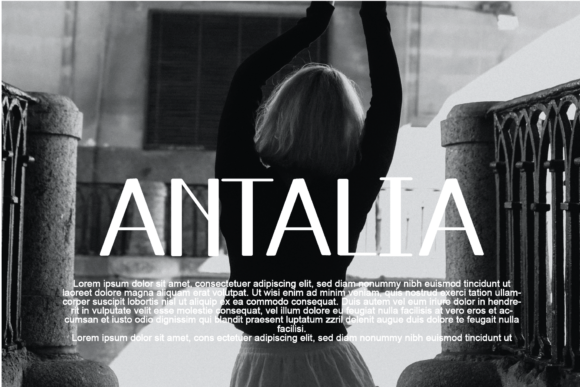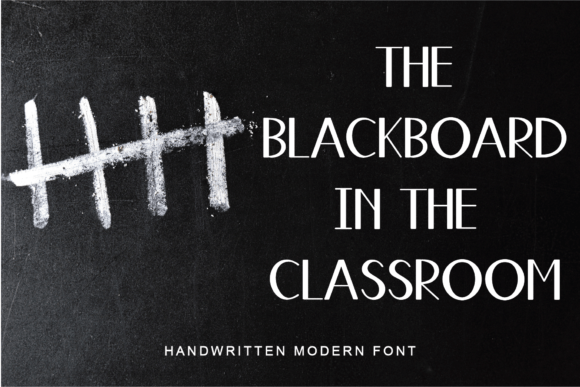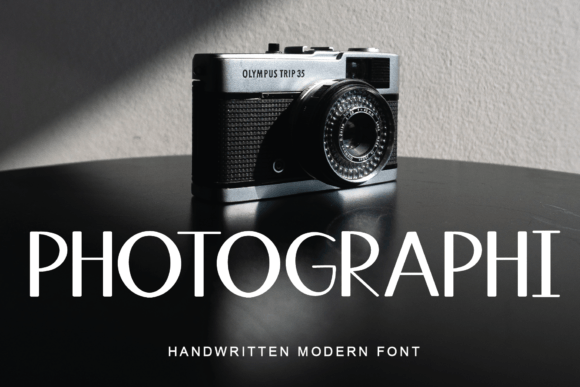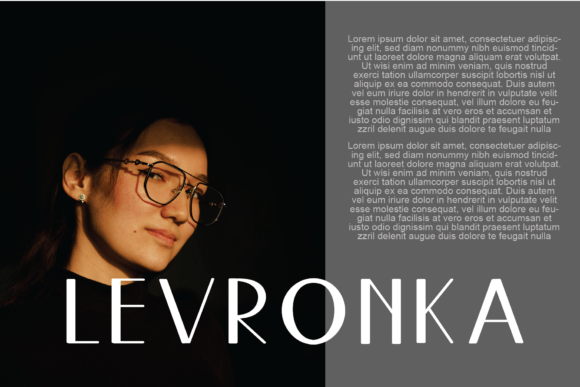
Introduction to Monokrom Font
You’re browsing through design inspiration boards, and suddenly, you stumble upon the perfect font to elevate your creative project. The sleek lines, futuristic feel, and high-quality design of the Monokrom Font catch your eye. You can almost envision how it would look on your latest design project, with its transparent background adding a touch of sophistication.
Whether you’re a seasoned designer or just starting to build your design library, the Monokrom Font is a valuable addition. It’s a free download that can be used in a variety of creative projects, from logos to social media graphics. With its modern and futuristic vibe, it’s an excellent design resource for those looking to push the boundaries of their design work.
Key Features of Monokrom Font
- High-quality design resource suitable for creative projects requiring a unique, minimalist aesthetic.
- Available in a range of sizes and resolutions, making it adaptable for use in different contexts.
- Monokrom Font’s unique characteristics include its geometric shapes and clean lines, making it perfect for modern designs.
- Designed to be versatile and easily scalable, ensuring it looks great in both small and large applications.
Honest Review: Monokrom Font
As a designer, I’ve had the pleasure of working with numerous fonts, but the Monokrom Font has left a lasting impression on me. This high-quality font is a great addition to any design resource collection.
- ✨ The Monokrom Font offers a unique aesthetic that’s perfect for creative projects requiring a touch of sophistication.
- ✨ The font is highly customizable, making it an excellent choice for designers who want to create a cohesive visual identity.
- ⚠️ The Monokrom Font may not be suitable for all design projects, particularly those requiring bold or playful typography.
- ⚠️ The font’s transparent background can sometimes make it challenging to use in designs with busy or complex backgrounds.
Overall, the Monokrom Font is a solid choice for designers seeking a high-quality, versatile font. While it may have some limitations, its unique aesthetic and customization options make it an excellent addition to any design resource collection.
Tips for Getting the Most Out of Monokrom Font
For the best results, use the Monokrom Font with a transparent background to give your design a clean and modern look. Experiment with different font sizes and styles to add visual interest to your project.
The Monokrom Font is a versatile design resource that can be used for a wide range of projects, including business cards, brochures, and social media graphics. Its clean and modern design makes it perfect for any creative project that requires a professional look.
Alternatives to Monokrom Font
Circular Font
Circular Font is a modern, sans-serif font perfect for creative projects requiring high-quality typography. Its clean and minimalistic design makes it ideal for designs with transparent backgrounds. When to use: Logos, branding, and marketing materials.
Comparison to Monokrom Font: Circular Font has a more rounded design, while Monokrom Font is more angular. Circular Font is also more versatile and can be used for both digital and print designs.
Montserrat Font is a geometric sans-serif font designed for use in digital interfaces and creative projects. Its high quality and modern design make it an excellent alternative to Monokrom Font. When to use: Digital products, websites, and applications.
Comparison to Monokrom Font: Montserrat Font has a more geometric design, while Monokrom Font is more minimalist. Montserrat Font is also more suitable for digital designs, while Monokrom Font is better suited for print materials.
Open Sans Font is a popular, open-source sans-serif font suitable for a wide range of creative projects. Its clean and high-quality design makes it an excellent alternative to Monokrom Font. When to use: Digital products, websites, and documents.
Comparison to Monokrom Font: Open Sans Font has a more neutral design, while Monokrom Font is more distinctive. Open Sans Font is also more versatile and can be used for both digital and print designs.
Does the Monokrom Font have a transparent background, making it suitable for overlaying on images?
Yes, the Monokrom Font has a transparent background, making it ideal for overlaying on images or using as a design element in creative projects. The font’s transparent background allows you to easily combine it with other design elements, such as images or graphics, without worrying about distracting backgrounds.